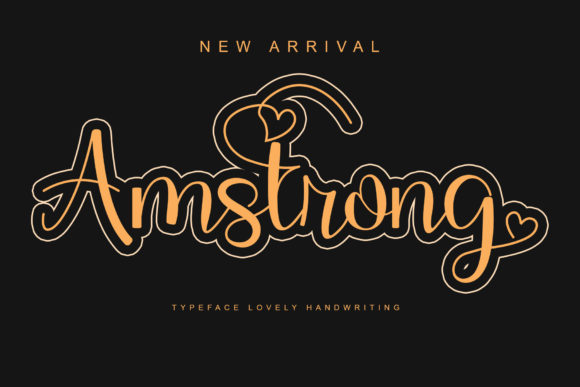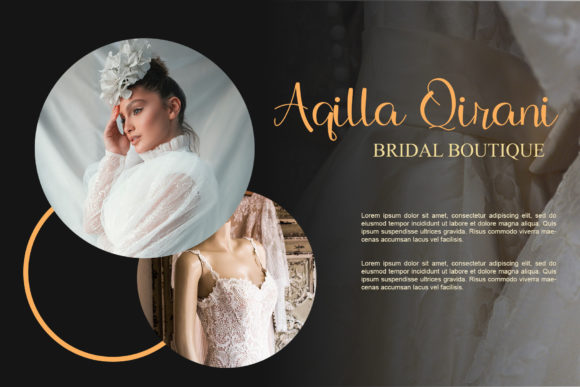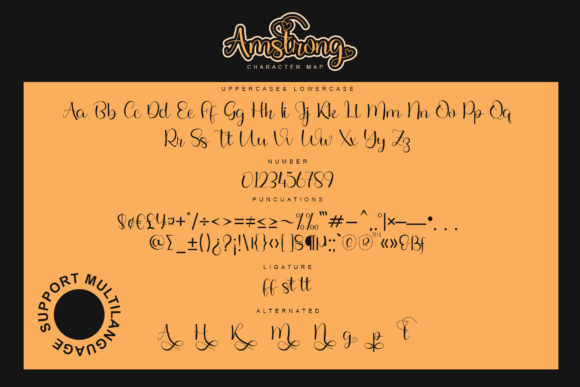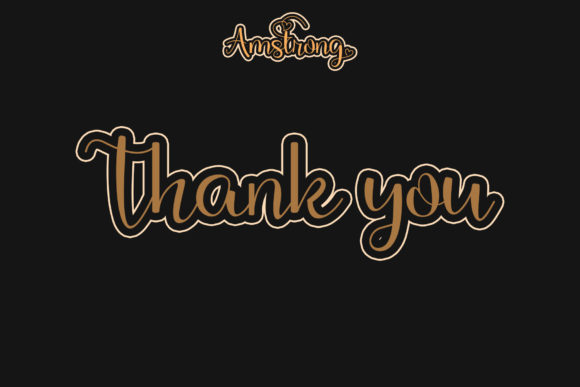
Amstrong Font
About Amstrong Font
Amstrong is a beautiful and refined script font. It has a classy, elegant and modern look that can be used for logos, branding, invitations, stationery, wedding designs, social media posts, and much more!